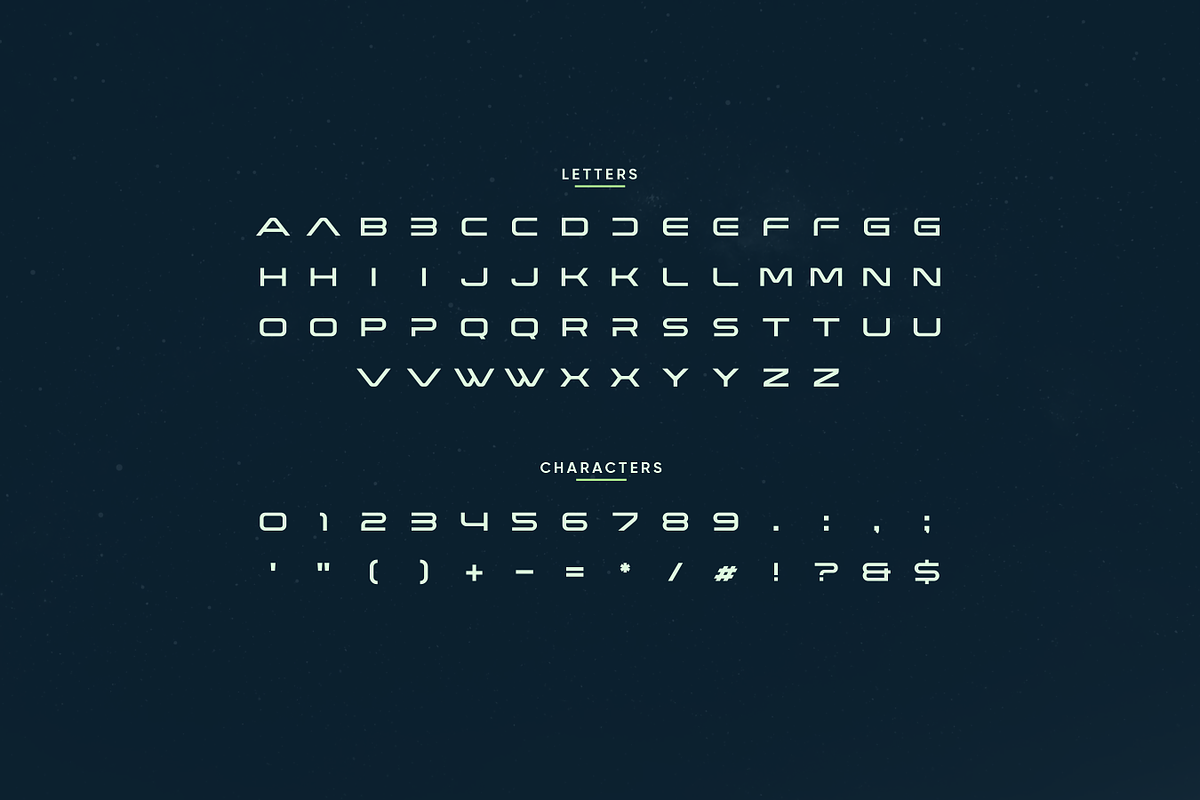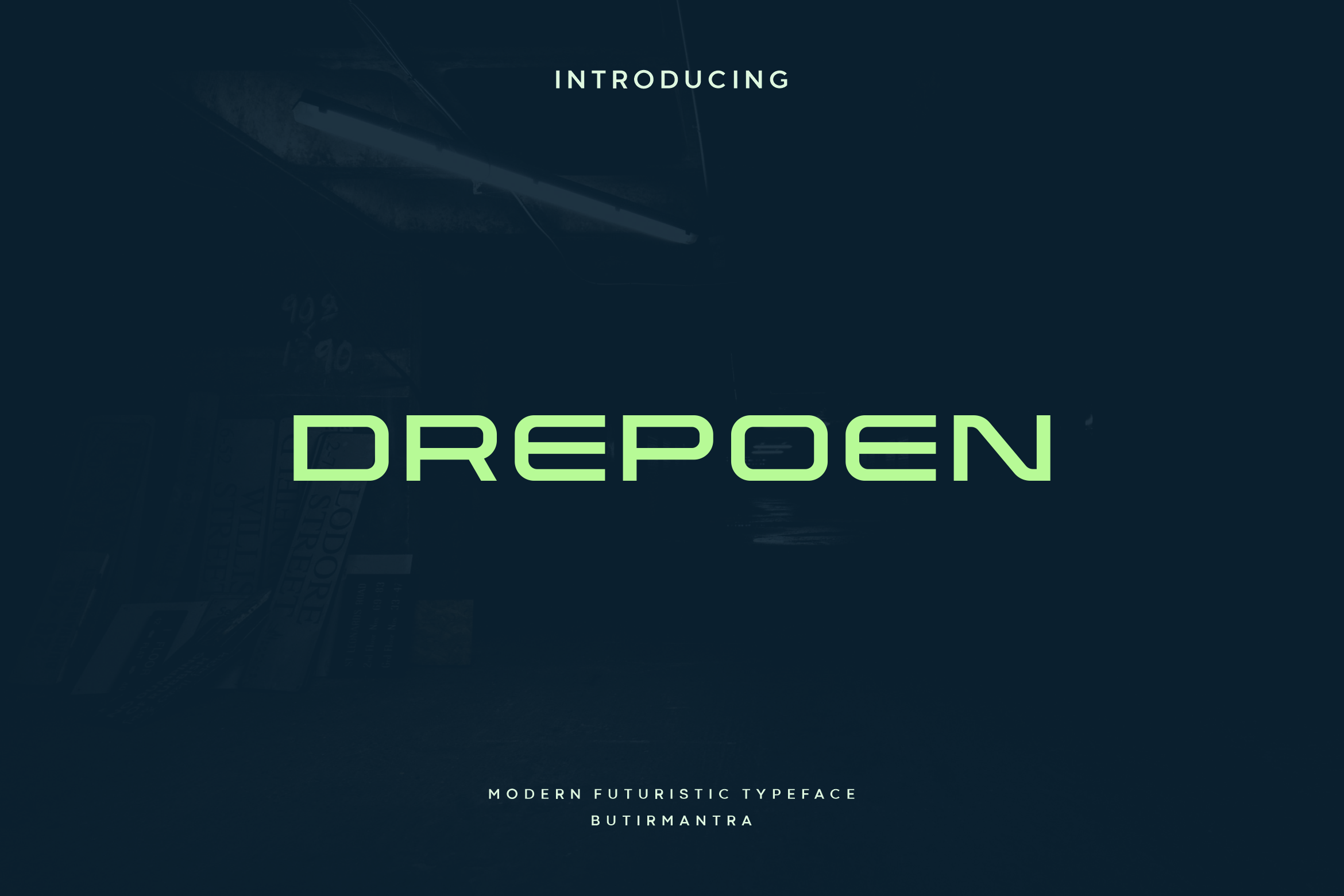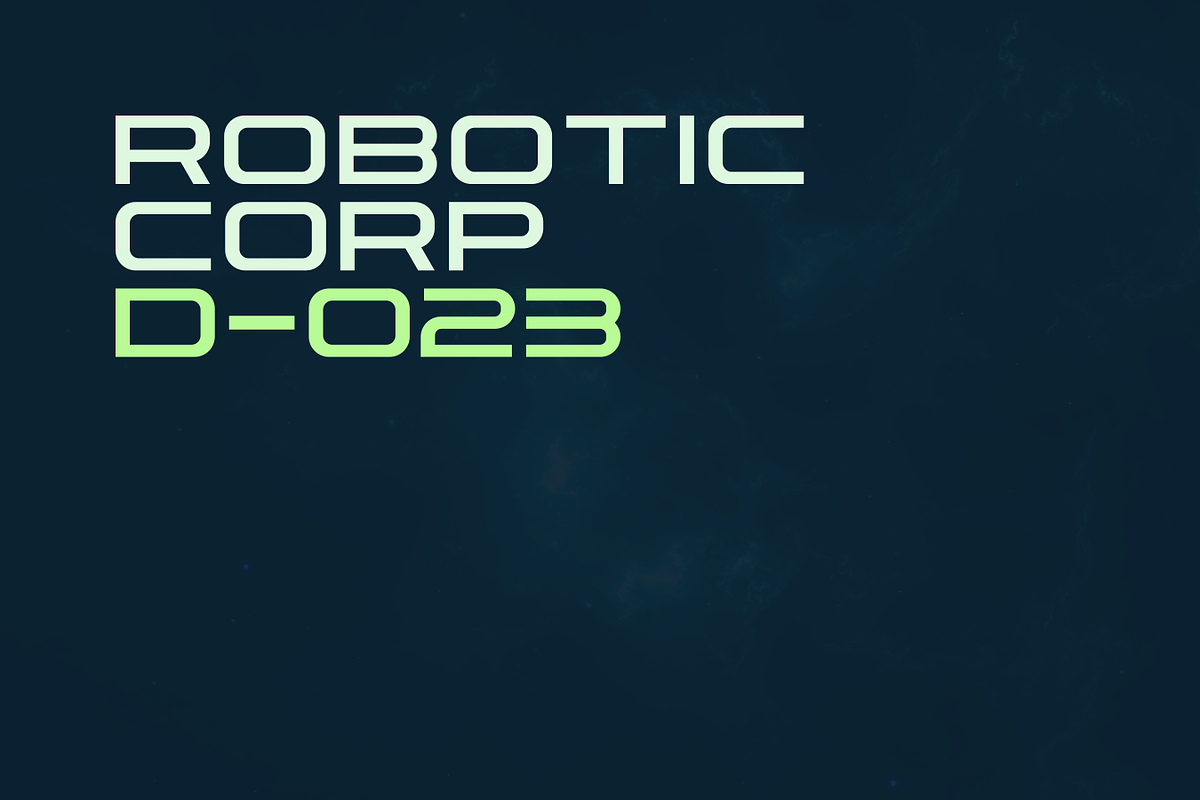
Drepoen - Modern Futuristic Typeface
Drepoen is a modern and fresh font, ideal for projects that require a futuristic, sci-fi, or high-tech atmosphere. This typeface has a unique and modern look to lowercase letters, coming in two different styles allowing you to give your designs a bold, dynamic and eye-catching style. Unusual and futuristic letter shapes will make your project stand out from the crowd, when combined with the unique lower casee it will help create very unique and eye-catching designs. Drepoen is very flexible to use for various design projects around the world, don't miss the chance to use this powerful and stylish font for your creations!